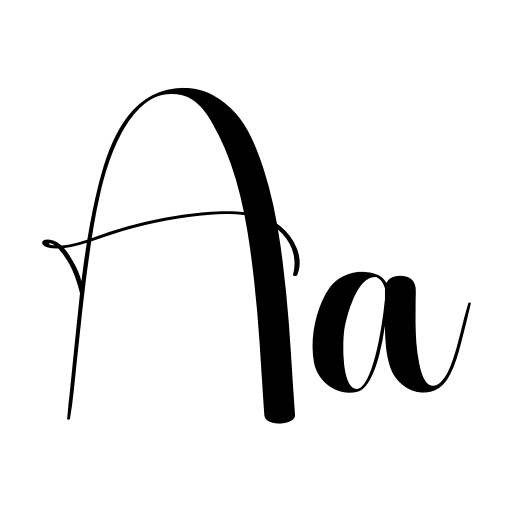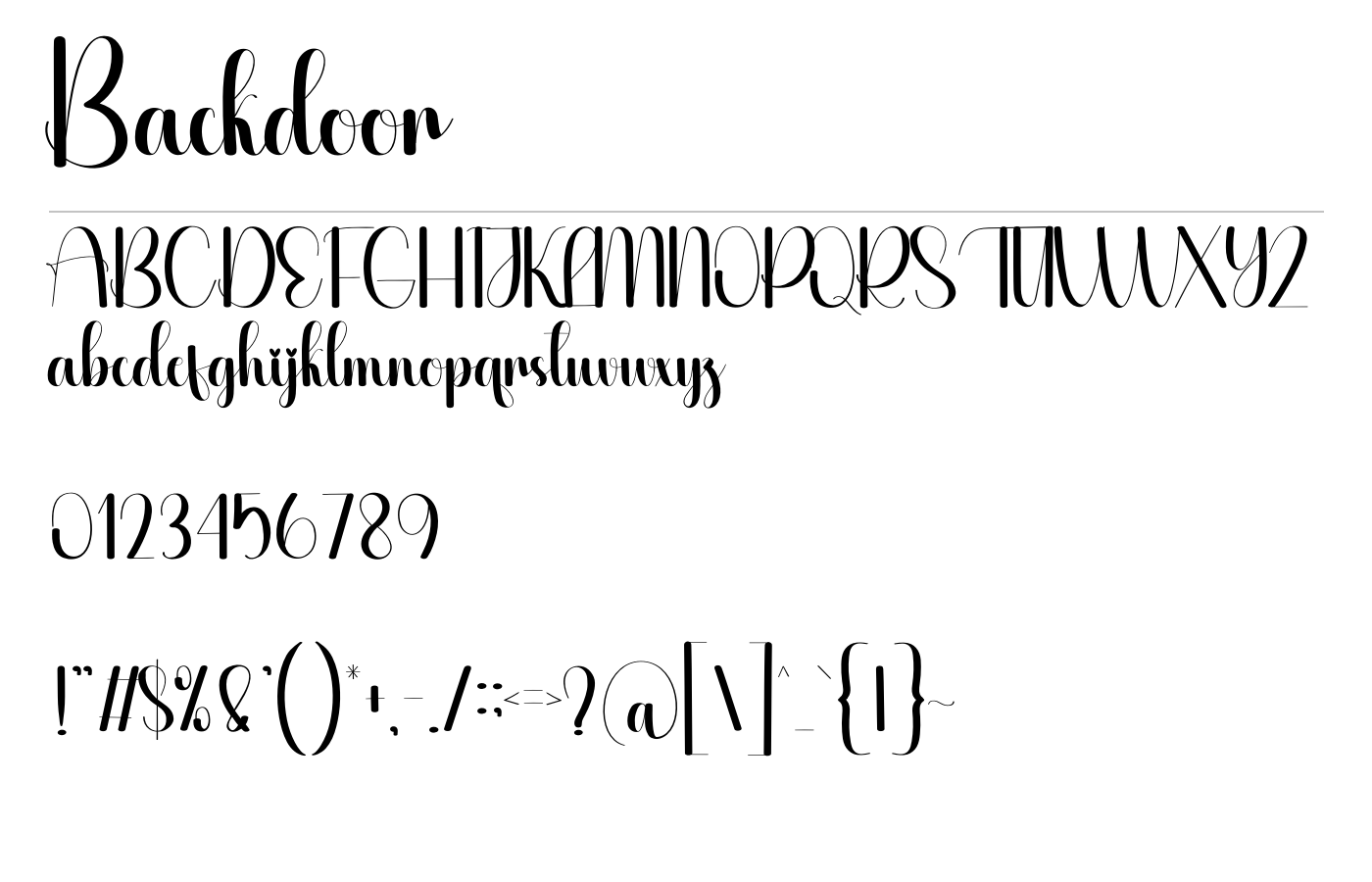
Backdoor is a stylish script font with a playful, modern flair characterized by its tall, narrow letterforms and elegant, flowing strokes. Its contrast between thick and thin lines along with whimsical details in both uppercase and lowercase letters make it ideal for creative branding, invitations, and eye-catching headlines where a sophisticated yet approachable personality is desired. This font works best in designs that benefit from a charming and artistic touch without sacrificing readability.
Backdoor Font